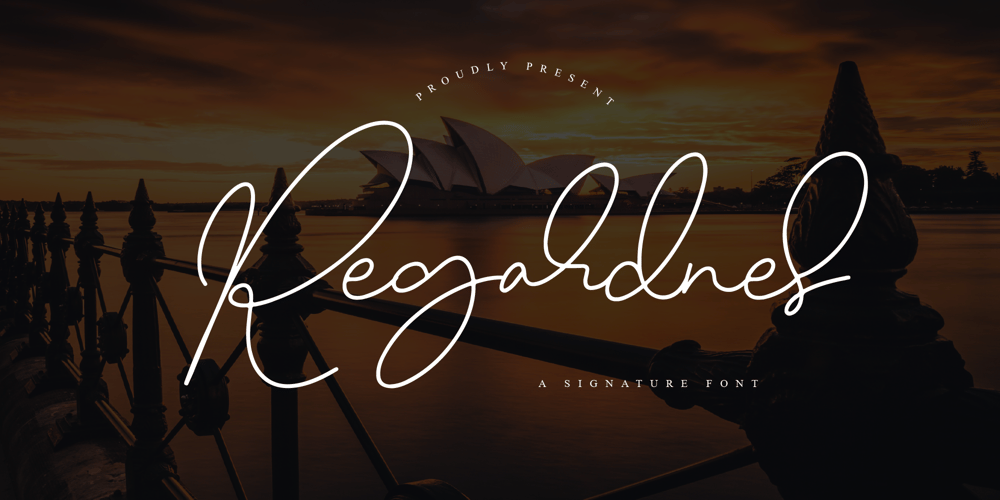
Regardnes
Regardnes font
Regardnes Font Family was designed by ryan creative and published by ryan creative. Regardnes contains 1 styles and family package options. Regardnes Signature is a script typeface with hand-drawn monoline lines and simple lines that make this font look pretty and modern. Get a touch of a modern, simple, and fun signature script font, with glyphs and features open type with styles and binders, Ligatures, and alternative additions bundled together with swashes. It can be used for various purposes. such as brand names, wedding cards, business brands, logos, book covers, magazine designs etc.Regardnes signature is supported with additional characters that have an Alternative shape along with swashes and ligatures that will help you achieve beautiful styles with your own creations.FEATURES; -Uppercase, Lowercase, Foreign Support, Numbers and Punctuation-Alternatives, Swashes and Ligatures-Otf-Work on PC-Simple installation-Accessible in Adobe Illustrator, Adobe Photoshop. Adobe InDesign, even works in Microsoft Word -Fully accessible without additional design software.Regardnes Signature is encoded with PUA Unicode, which allows full access to all additional characters without having to design special software. Mac users can use the Font book, and Windows users can use the Character map to view and copy any extra characters to paste into your favorite text editor/app.